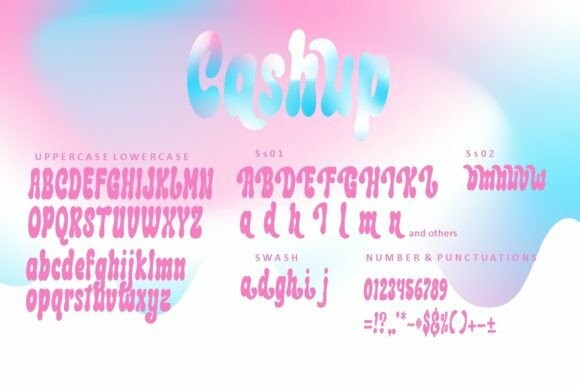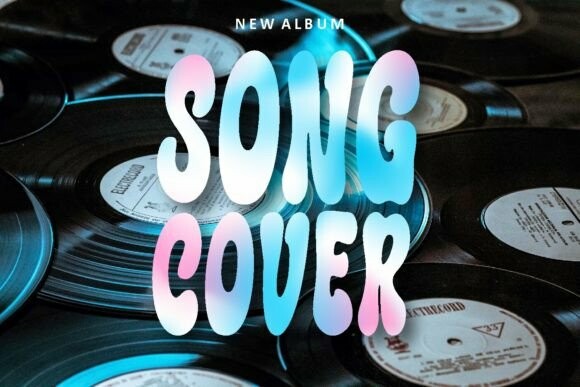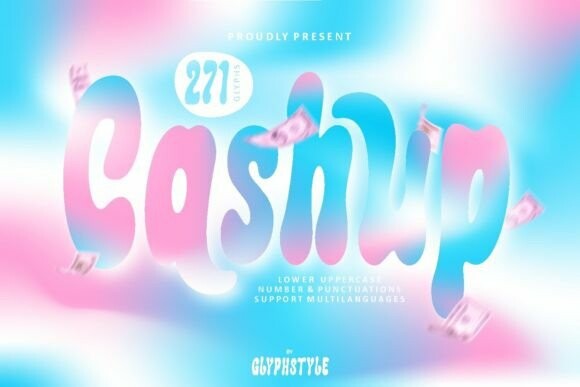
Cashup Font
Designer: glyphstyle
Cashup Font is a bubble-shaped display font. With smooth curves, it creates a beautiful font shape.
Cashup is perfect for branding projects, logos, wedding designs, social media posts, advertisements, product packaging, product designs, labels, photography, watermarks, invitations, stationery, and any project that requires a display bubble font.